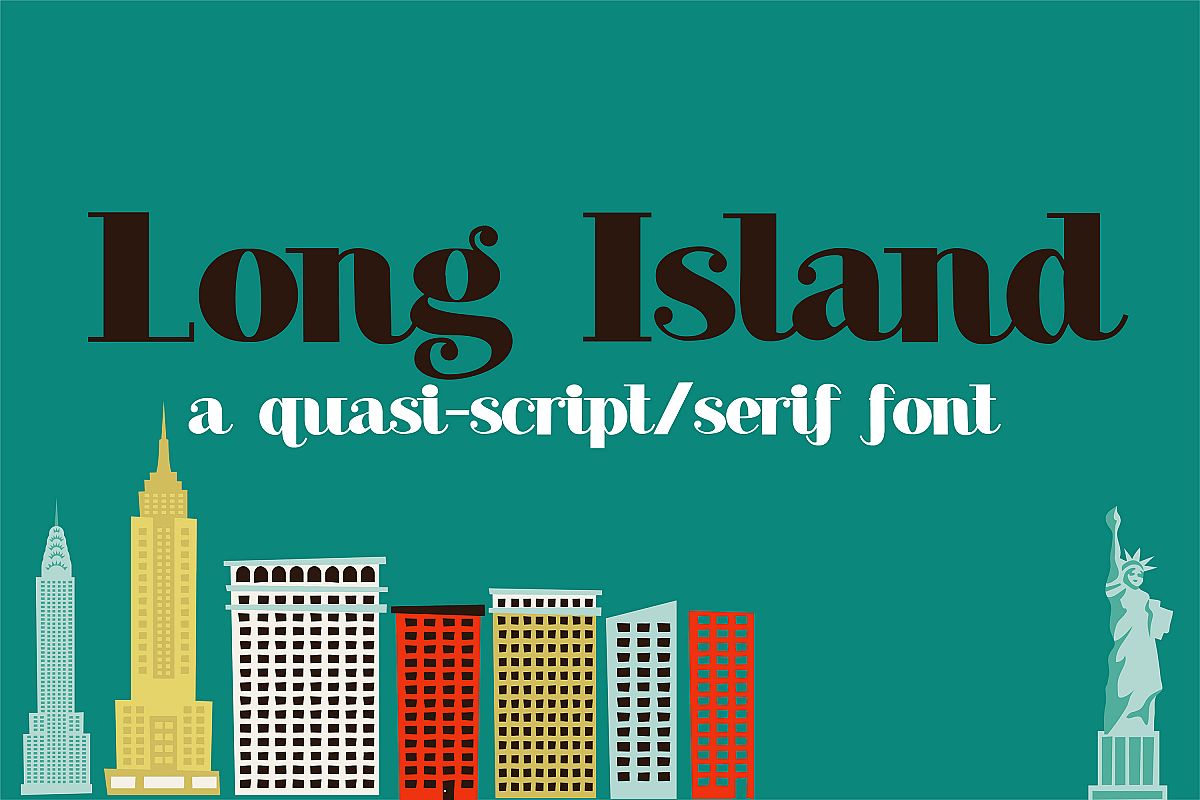
This quasi-script/serif font is the best of both worlds. It has a combination of script tails and serifs that makes it formal, yet casual. This font combines well with PN Long Island Independence.